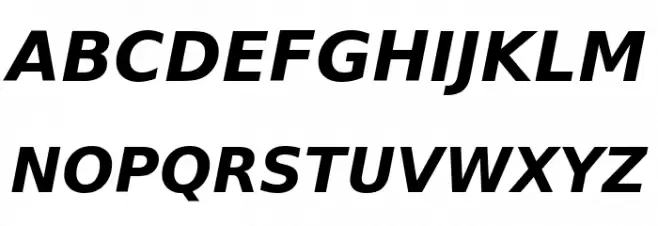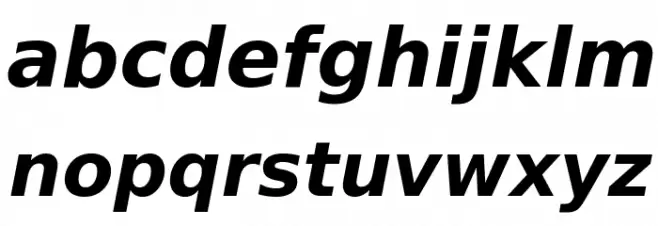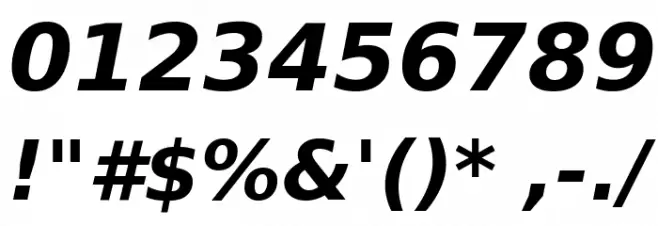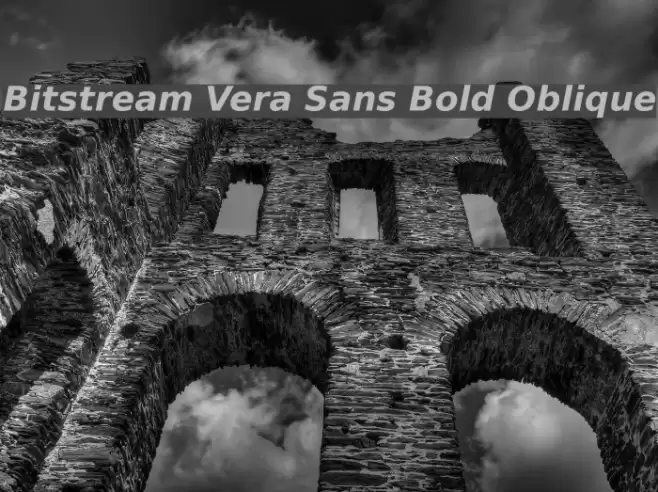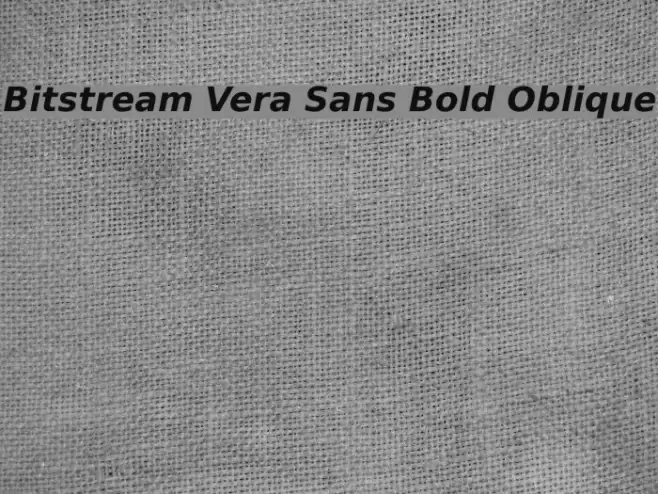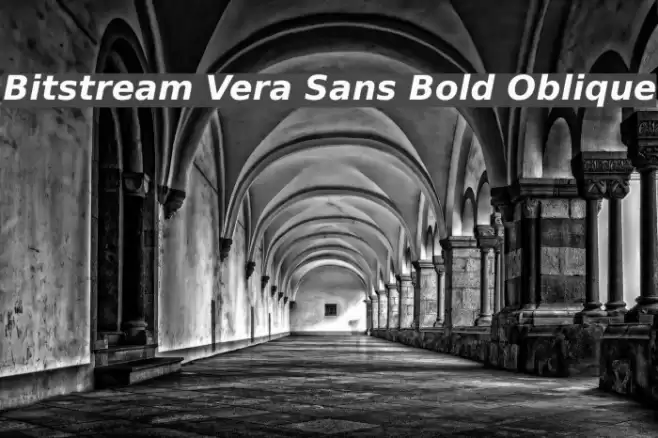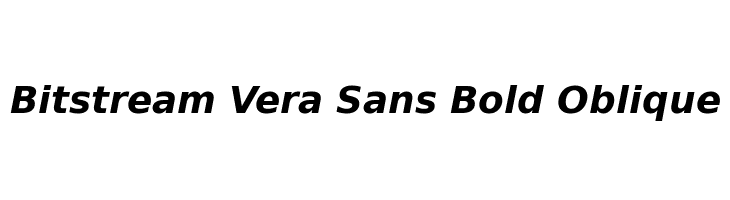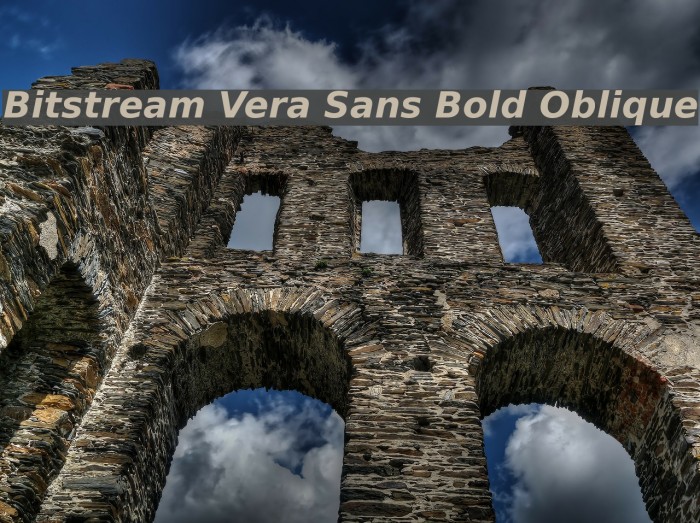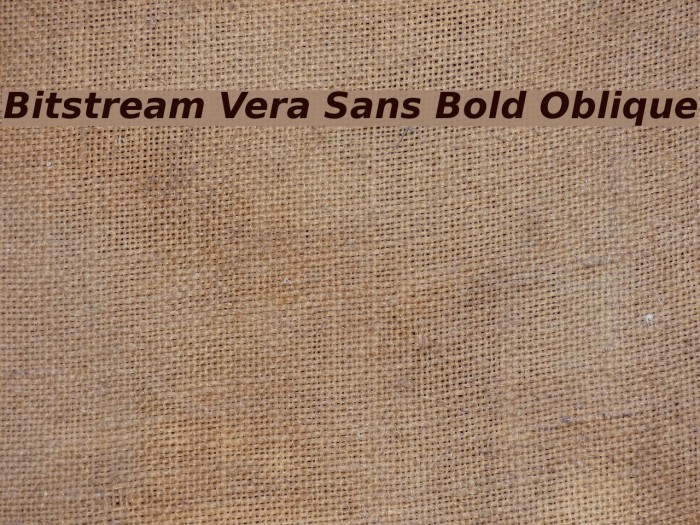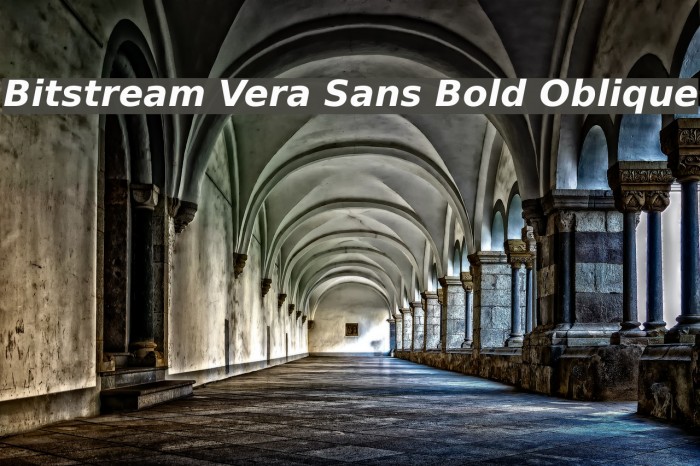
Bitstream Vera Sans Bold Oblique
This font exhibits a bold and oblique style, characterized by its strong and assertive appearance. The letters are slightly slanted, giving a dynamic and modern feel. The strokes are thick and consistent, providing a sense of stability and confidence. The font maintains a clean and professional look, making it suitable for various applications. The character spacing is normal, ensuring readability while maintaining a compact appearance. The numerals and special characters are designed with the same boldness, ensuring uniformity across all elements.
A bold, oblique font with a modern and dynamic style.
- Proposed Projects: Ideal for headlines, branding, advertising, and any project requiring a strong visual impact.
- Use Case: Headlines, Logos, Advertising